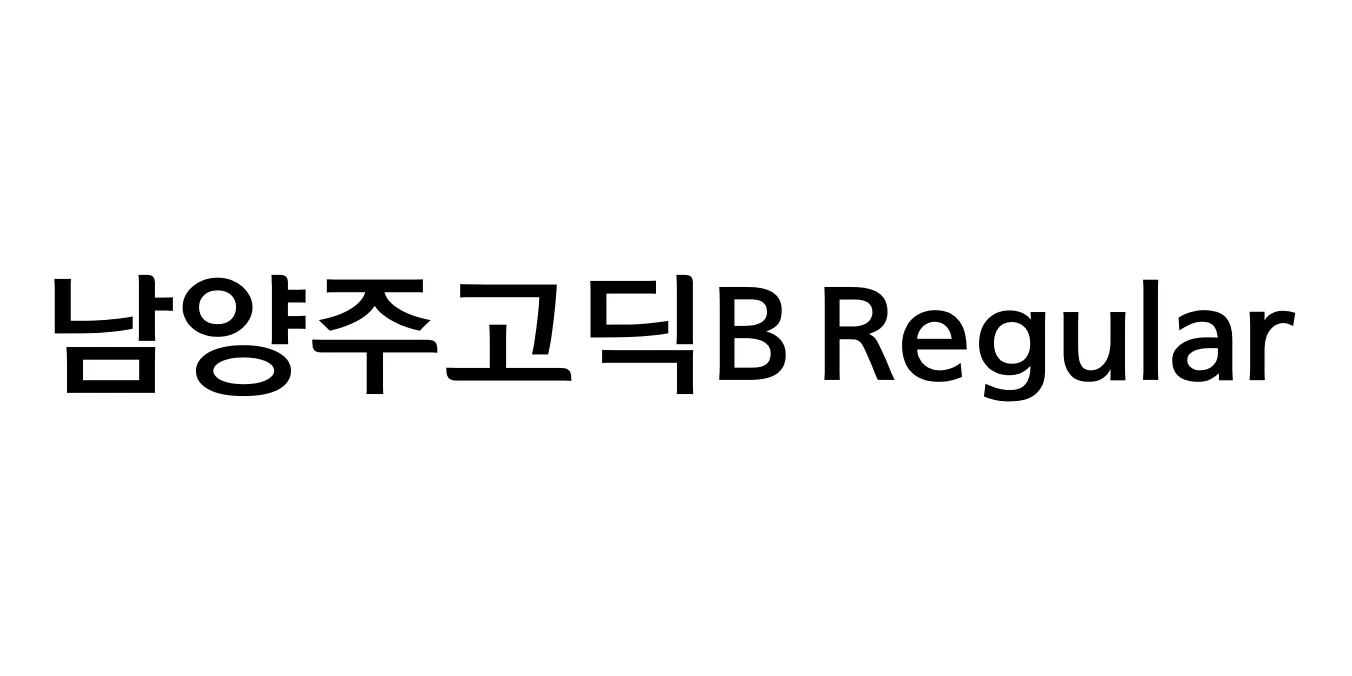
남양주고딕B Regular
Designed by Namyangju City
| Category | Sans Serif / Gothic |
| Designer | Namyangju City |
Namyangju Gothic B is a signature typeface developed by the Namyangju City government to establish a consistent brand identity and provide a high-quality typographic tool for its citizens. The font features a modern Sans Serif structure with balanced proportions, designed specifically to ensure maximum legibility in both digital environments and traditional print media. Its clean lines and stable baseline make it a versatile choice for professional communication.
The design of Namyangju Gothic B emphasizes clarity and strength, making it particularly effective for official administrative documents and public information systems. As a public domain typeface, it has been widely adopted for regional branding, signage, and promotional materials. Its open counters and geometric influence allow for a comfortable reading experience even at smaller point sizes, representing a perfect harmony between functionality and regional identity.
High visibility makes it ideal for public signs and outdoor banners.
Perfect for creating a trustworthy and clean brand image.
Strong stroke weights command attention in titles and editorial layouts.
Optimized for screen readability in user interfaces and web content.